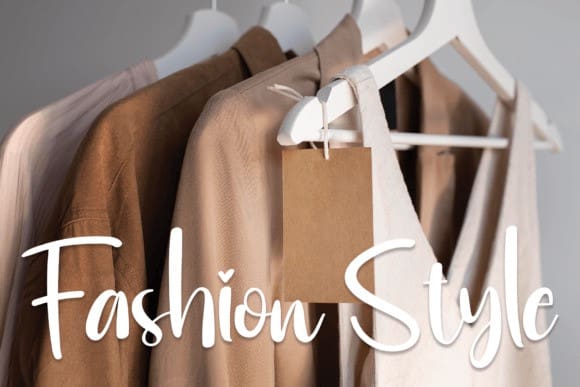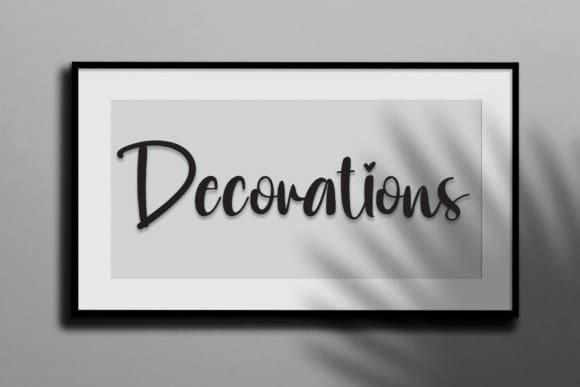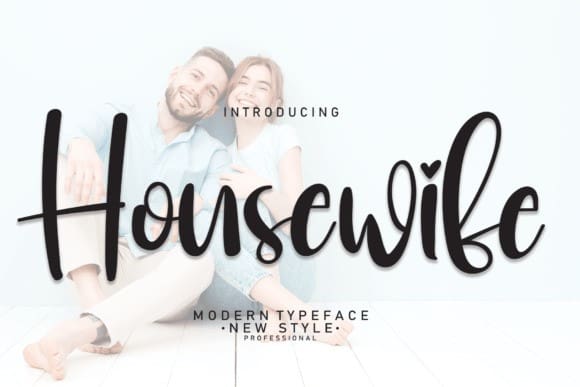
Housewife Script Typeface
Housewife Script Typeface, perfect for wall displays, wedding invitations, social media post logos, advertisements, product packaging, product designs, labels, photography, watermarks, invitations, stationery, and any project that requires a handwritten taste.